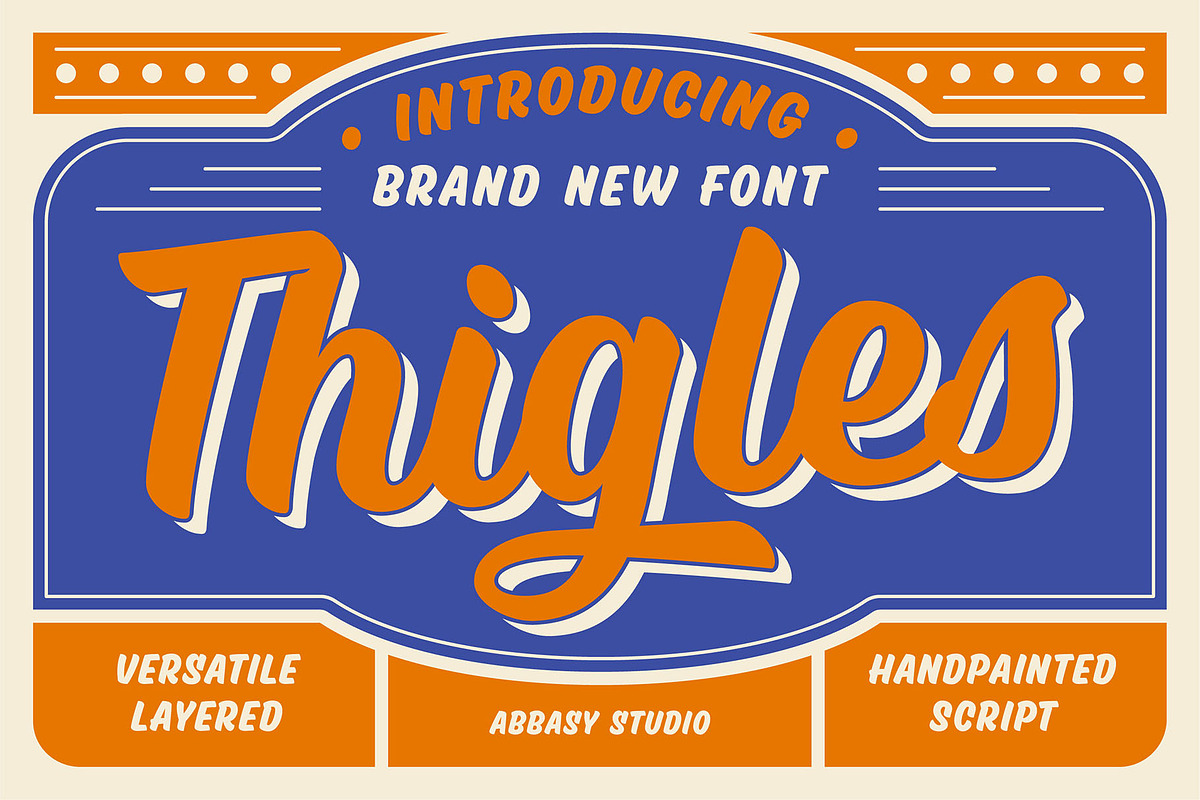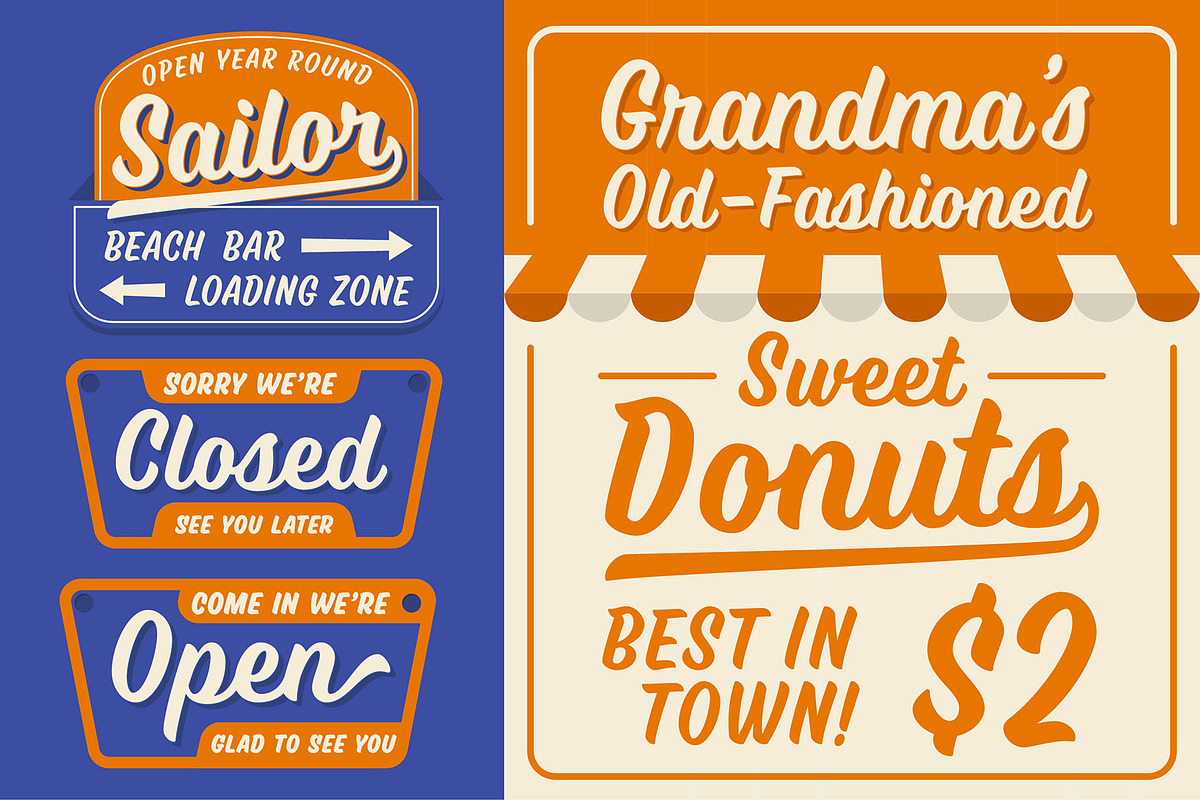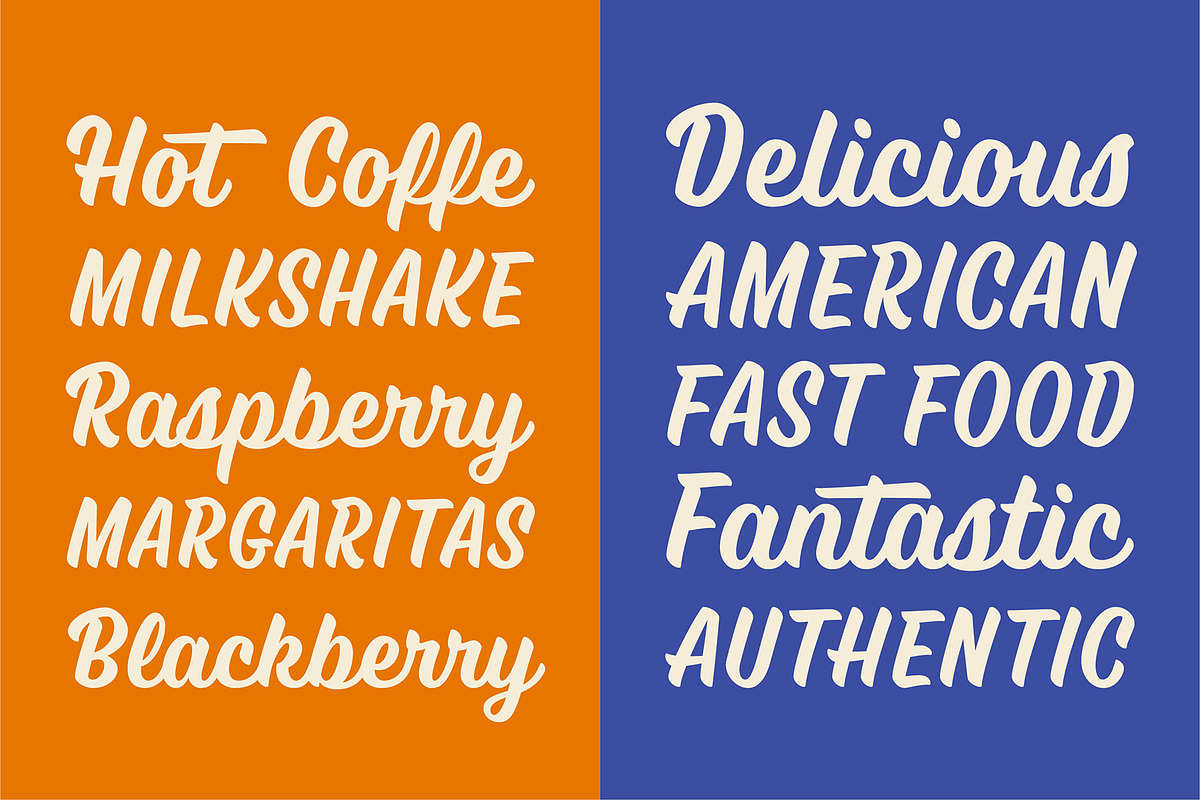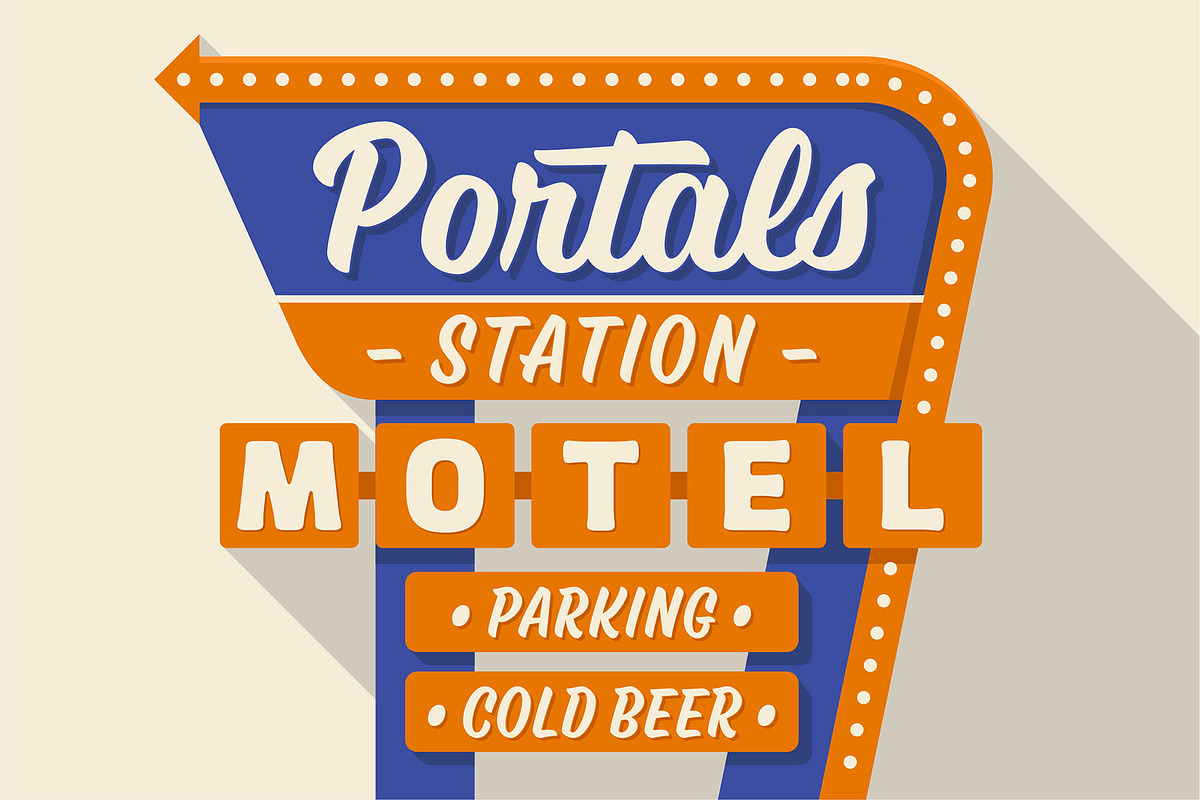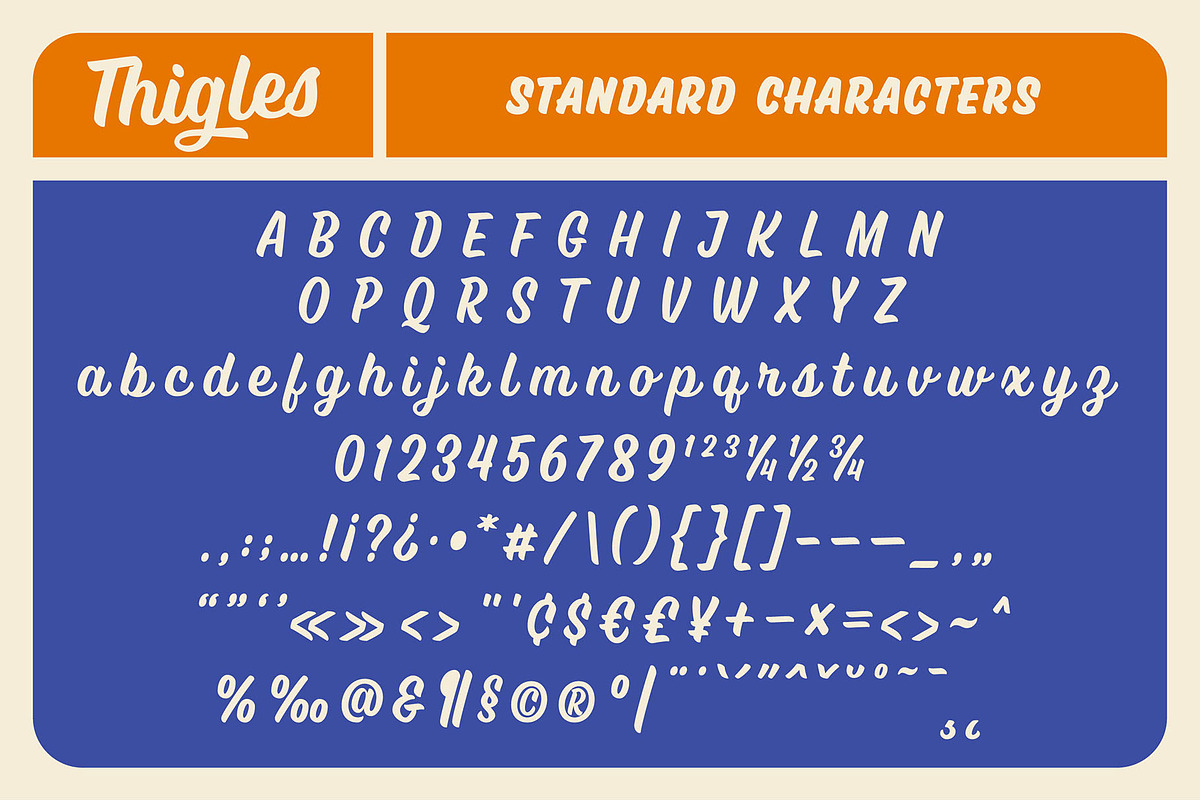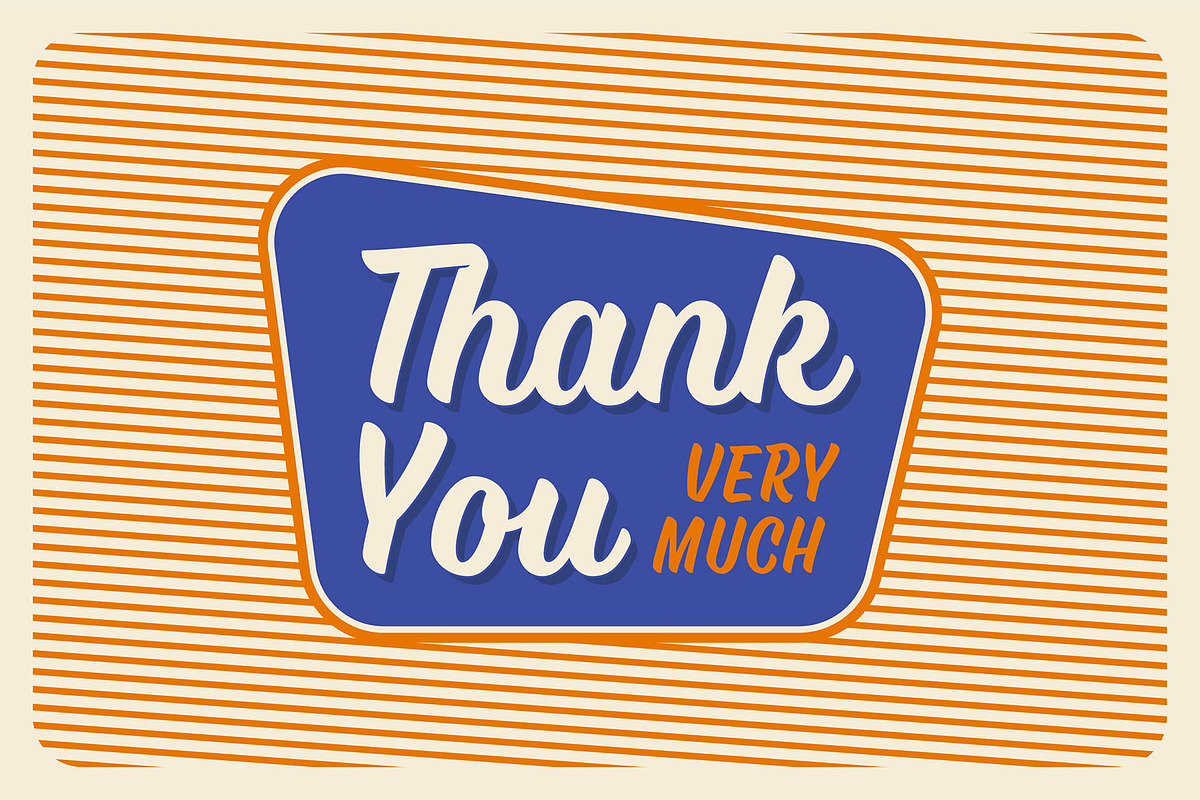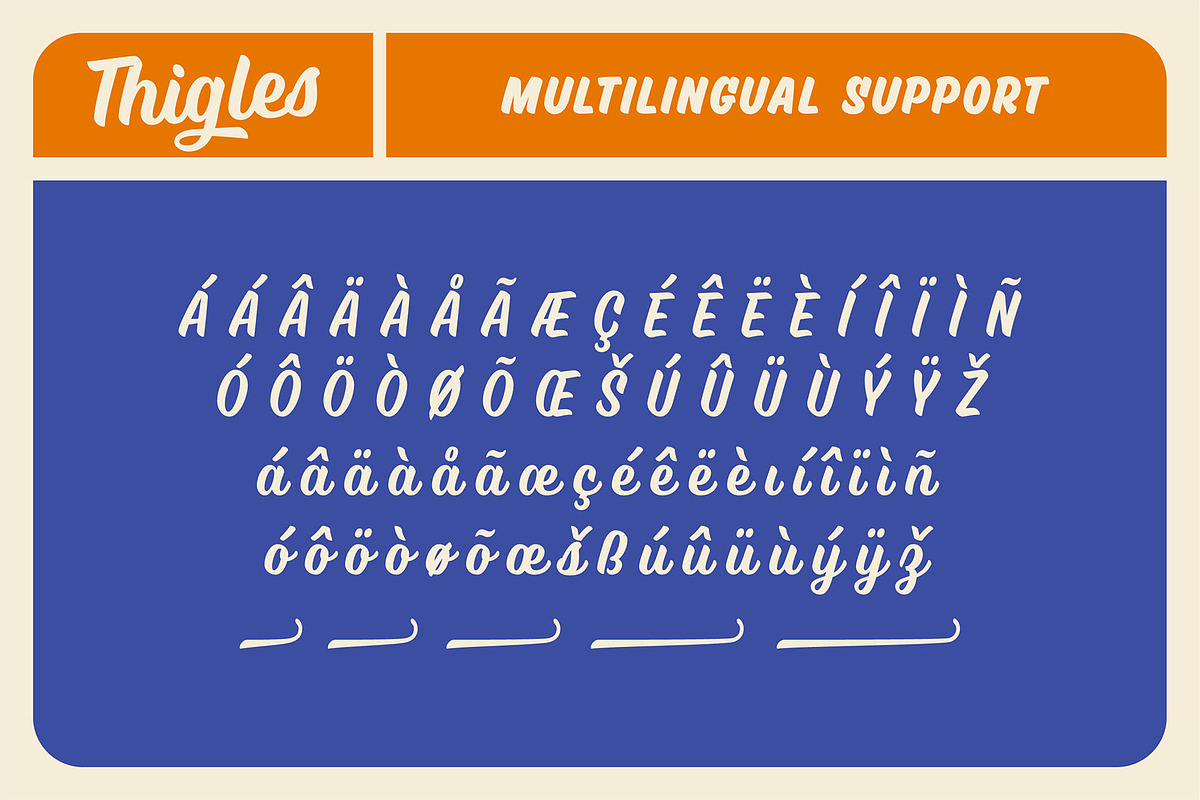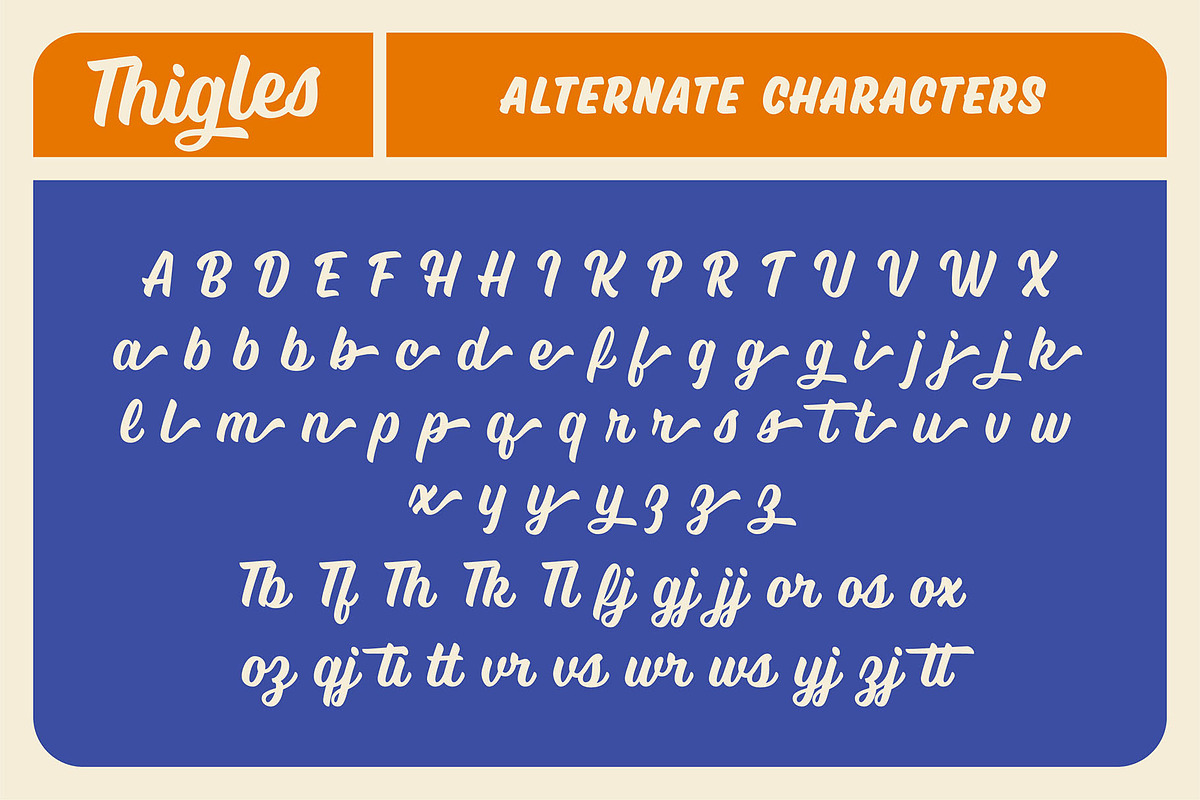
Thigles
Thigles, is a font inspired by Signs Painting, these pretty hand painted letters that you can see on buildings, billboards and signboards. Thigles font comes with some alternates and ligature as well to create your design more unique. With additional shadow font you will be able to create the beautiful combination and bring retro touch to your artworks!
- Alternates, Ligatures, & Swash